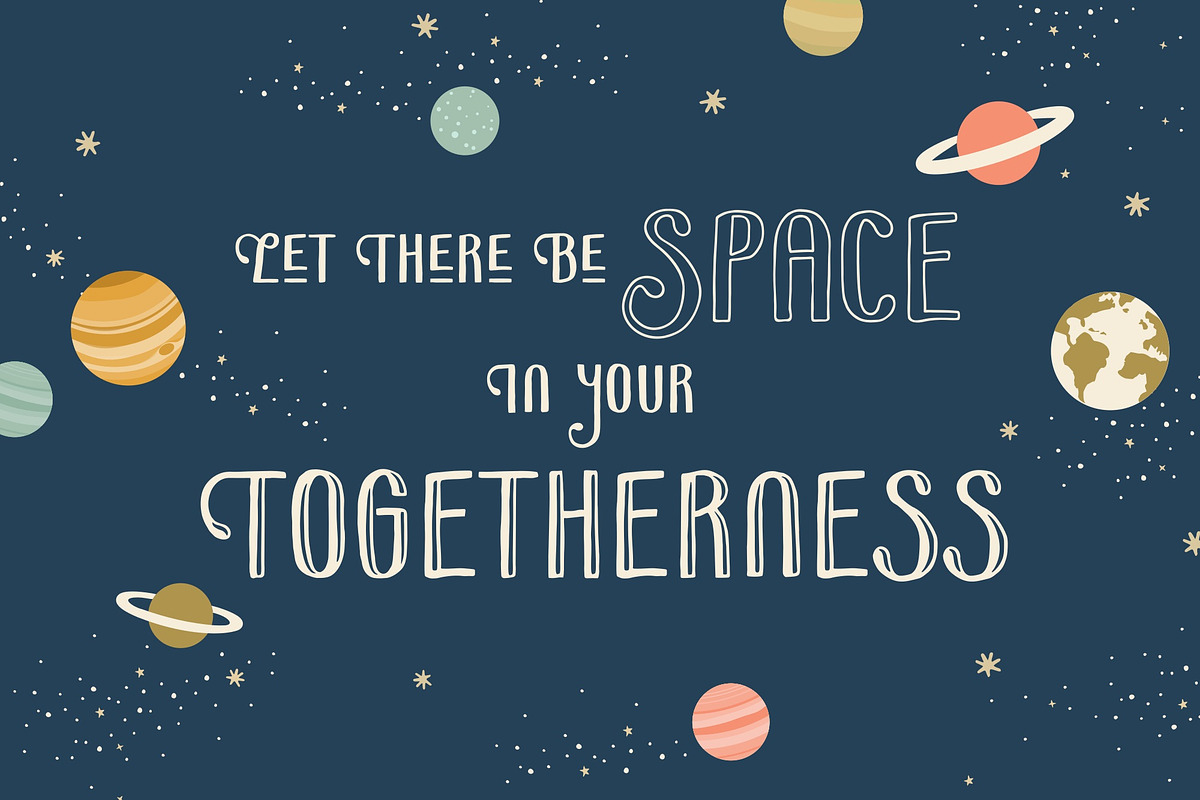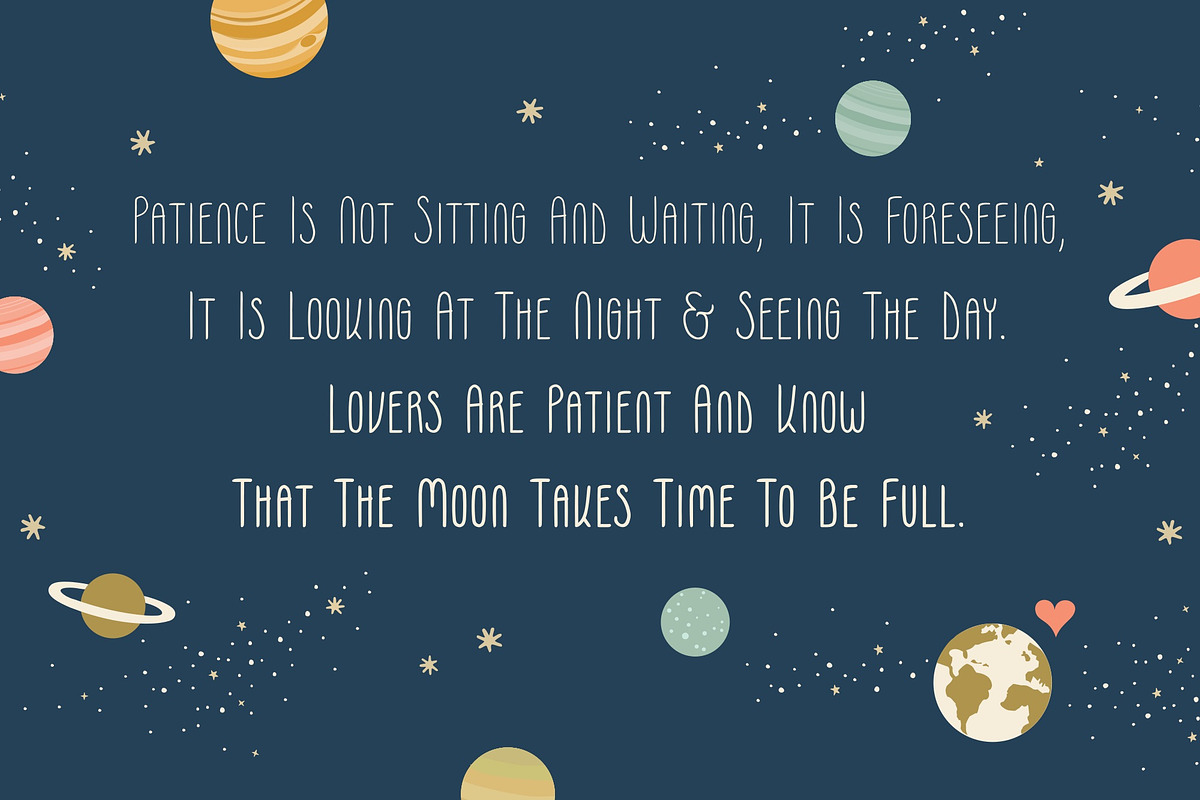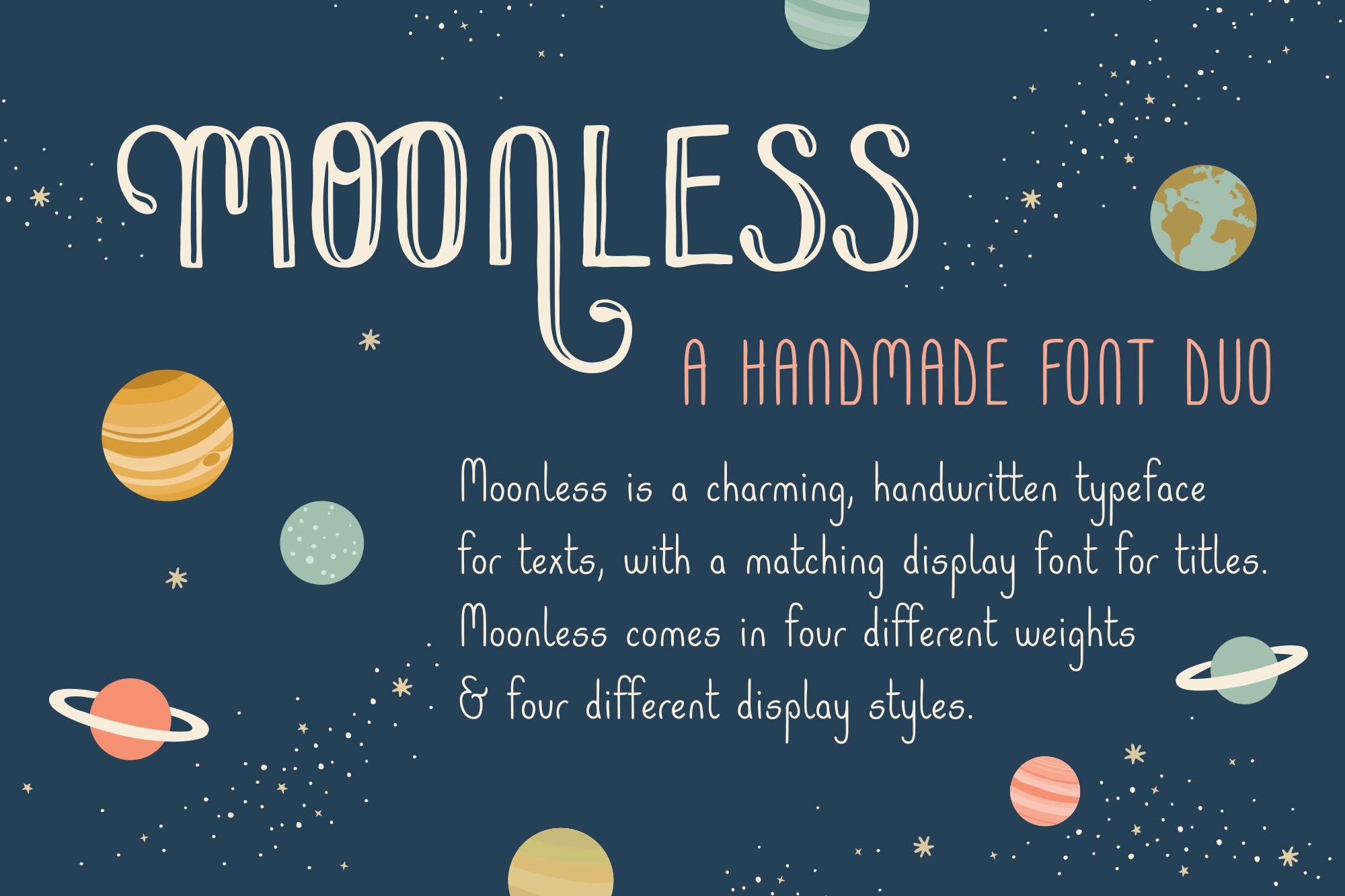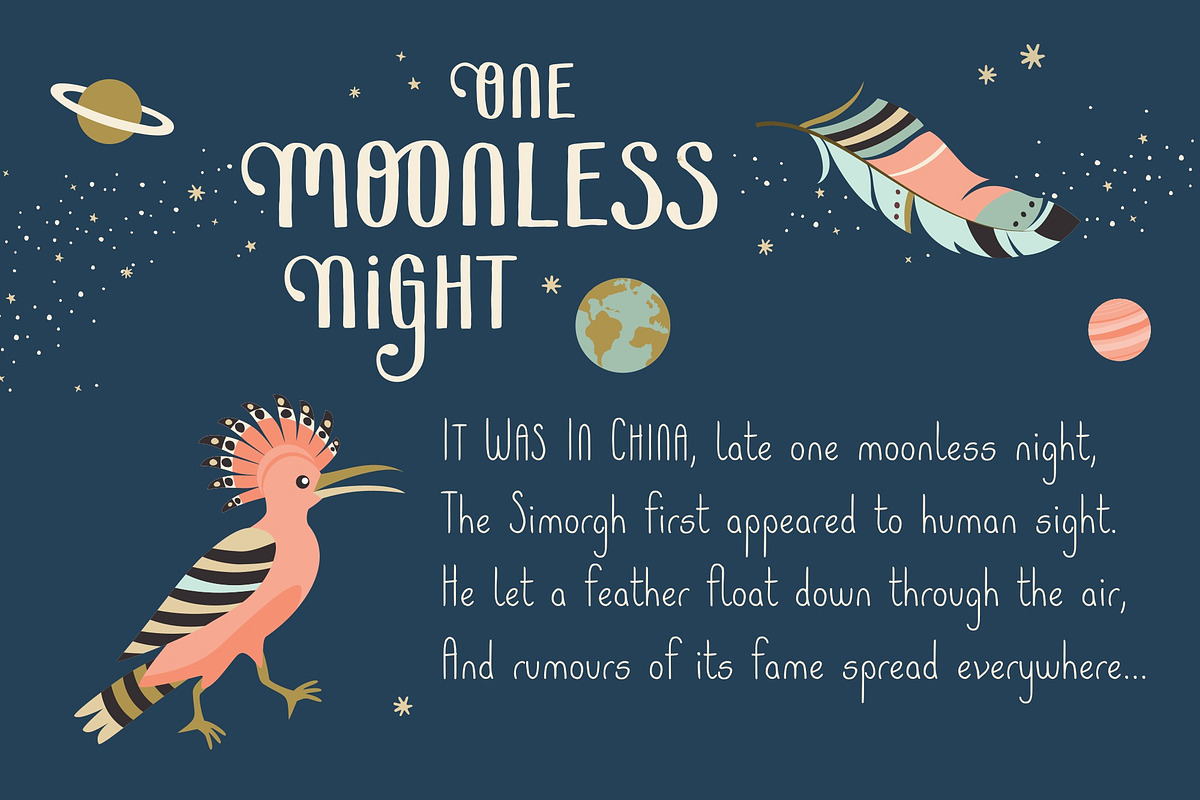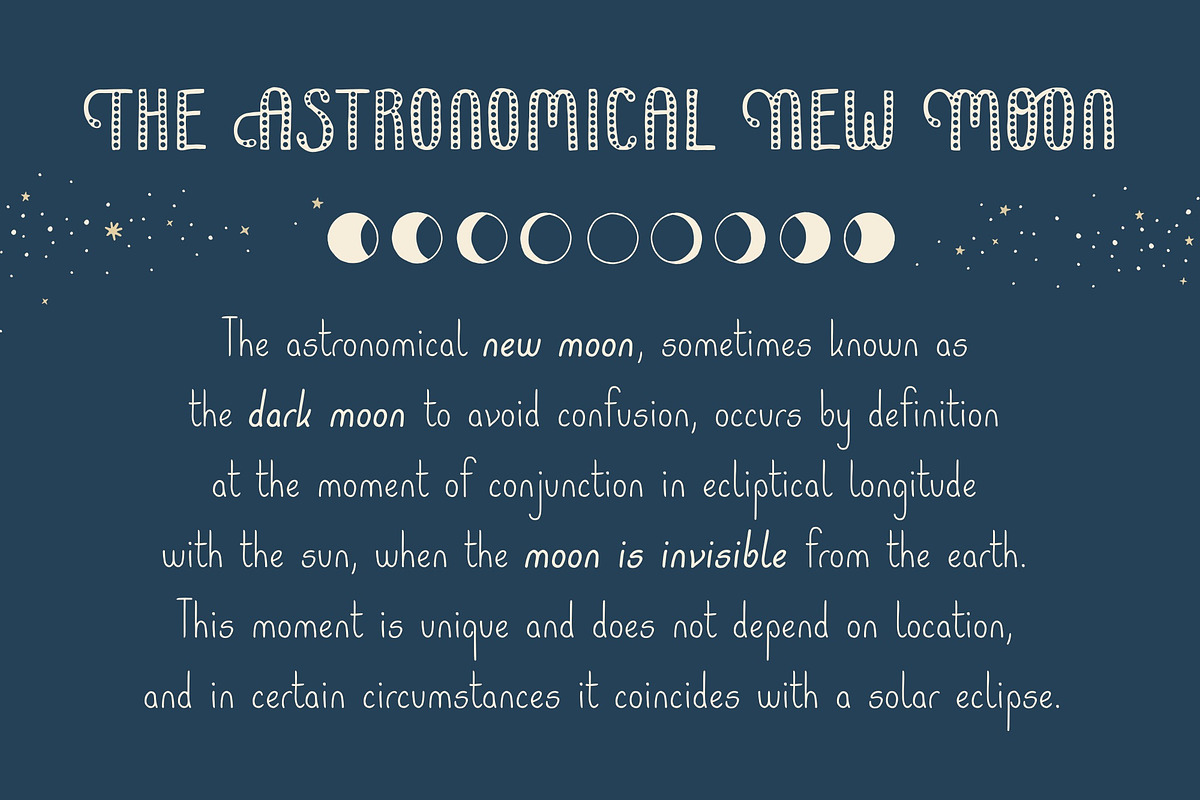
Moonless Handmade Font Duo
Moonless is a charming handmade font duo, designed for texts, with a matching display font for titles in four different styles. The text font has true-drawn small caps available as an OpenType feature. In case you have no access to OpenType features, there is "Moonless SC" - the small caps version of the font.
Moonless is perfect for children's books, poetry, invitations and design magazines.
Moonless for texts comes in four different weights:
- light
- regular
- semi bold
- bold
Moonless SC
- the small caps version of Moonless
The display font comes in four styles:
- regular ("night")
- engraved ("shine")
- with dots ("stars")
- outline ("space")
The font name was inspired by one simple word from Farid Attar's poem "The Conference Of The Birds".